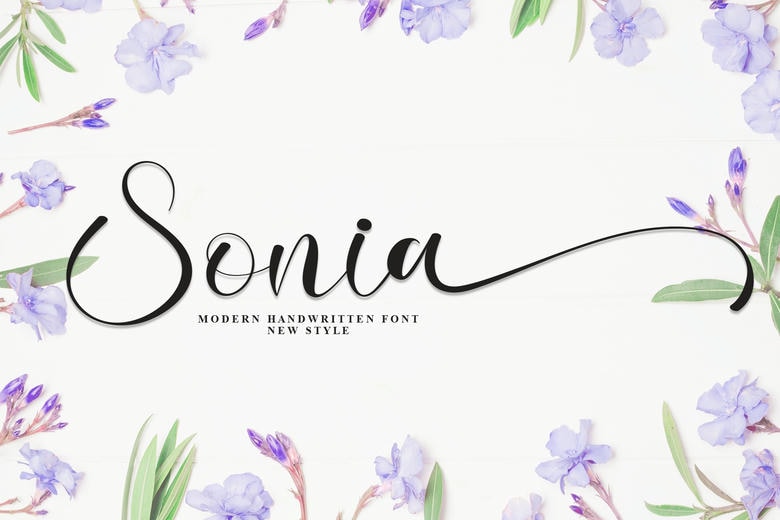
Sonia Font
Sonia is a graceful handwritten font that adds sophistication to your designs. Its smooth strokes and gentle curves work well for wedding invitations, branding, social media, product packaging, and other elegant projects. Sonia blends modern style with a classic handwritten feel.
Sonia Handwritten Script Font